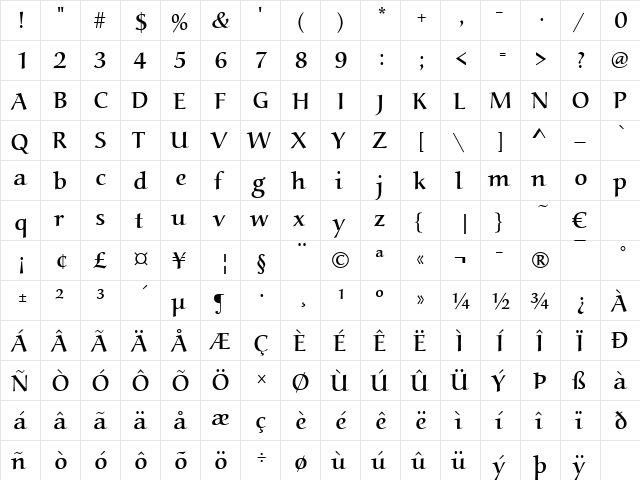
URWAlcuinT Regular
Design Context for URWAlcuinT Typeface
URWAlcuinT offers clean, dependable letterforms without strong stylistic allegiance, making it a practical choice for designers who need flexibility.